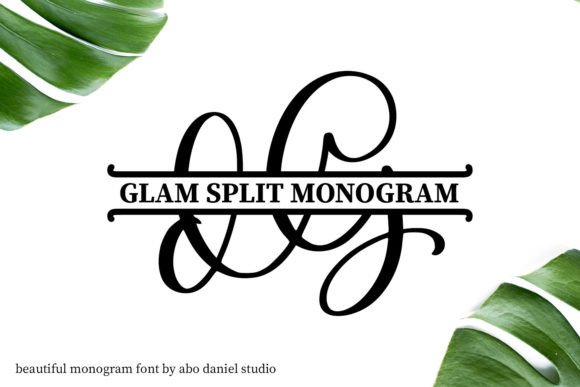
Glam Monogram Font: Elevate Your Craft Projects with Elegance
In the world of crafting, the right font can make all the difference in transforming a simple design into a stunning piece of art. For crafters, designers, and DIY enthusiasts, the Glam Monogram Font is a game-changer. This beautiful monogram decorative font is specially designed to add a touch of elegance and sophistication to various craft projects. In this article, we’ll explore the features, benefits, and uses of the Glam Monogram Font, and how it can elevate your crafting experience.
What is Glam Monogram Font?
Glam Monogram Font is a decorative font designed specifically for crafters, DIY enthusiasts, and designers. It’s a monogram font that features elegant and sophisticated lettering, perfect for adding a personal touch to various craft projects. The font is versatile, making it suitable for a wide range of applications, from t-shirt designs and logos to quotes, mugs, tote bag designs, cards, banners, and social media graphics.
Features of Glam Monogram Font
The Glam Monogram Font boasts several features that make it a must-have for crafters and designers:
- Elegant and Sophisticated Design: The font features a beautiful, cursive design that’s perfect for adding a touch of glamour to your craft projects.
- Monogram Style: The font is designed in a monogram style, making it ideal for creating personalized gifts, decorations, and designs.
- Versatile: The Glam Monogram Font can be used for a wide range of craft projects, from paper crafting to digital designs.
Uses of Glam Monogram Font
The Glam Monogram Font is perfect for a variety of craft projects, including:
- T-Shirt Designs: Create stunning t-shirt designs with the Glam Monogram Font, perfect for personal use or as a gift.
- Logos and Branding: Use the font to create elegant logos and branding materials for your business or personal projects.
- Quotes and Inspirational Graphics: Add a touch of glamour to your quotes and inspirational graphics with the Glam Monogram Font.
- Mugs and Water Bottles: Design beautiful mugs and water bottles with the font, perfect for personal use or as a gift.
- Tote Bag Designs: Create stunning tote bag designs with the Glam Monogram Font, perfect for grocery shopping, beach trips, or everyday use.
- Cards and Invitations: Use the font to create elegant cards and invitations for special occasions, such as weddings, birthdays, and holidays.
- Banners and Signs: Design beautiful banners and signs with the Glam Monogram Font, perfect for parties, events, or business promotions.
- Social Media Graphics: Add a touch of elegance to your social media graphics with the Glam Monogram Font, perfect for Instagram, Facebook, Twitter, and more.
Benefits of Using Glam Monogram Font
The Glam Monogram Font offers several benefits to crafters and designers:
- Time-Saving: The font saves time and effort, as you can easily create stunning designs without starting from scratch.
- Professional-Looking Designs: The Glam Monogram Font helps you create professional-looking designs that are perfect for personal or business use.
- Customization: The font allows for endless customization options, making it easy to personalize your designs.